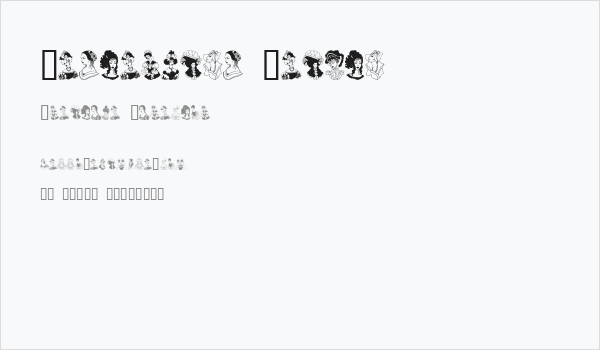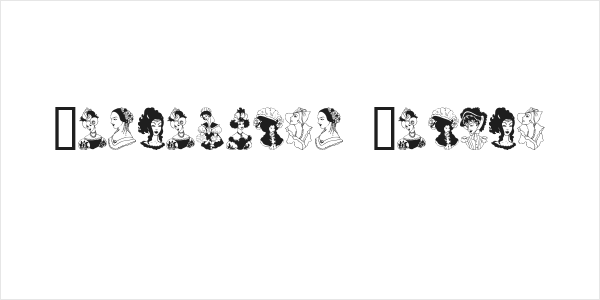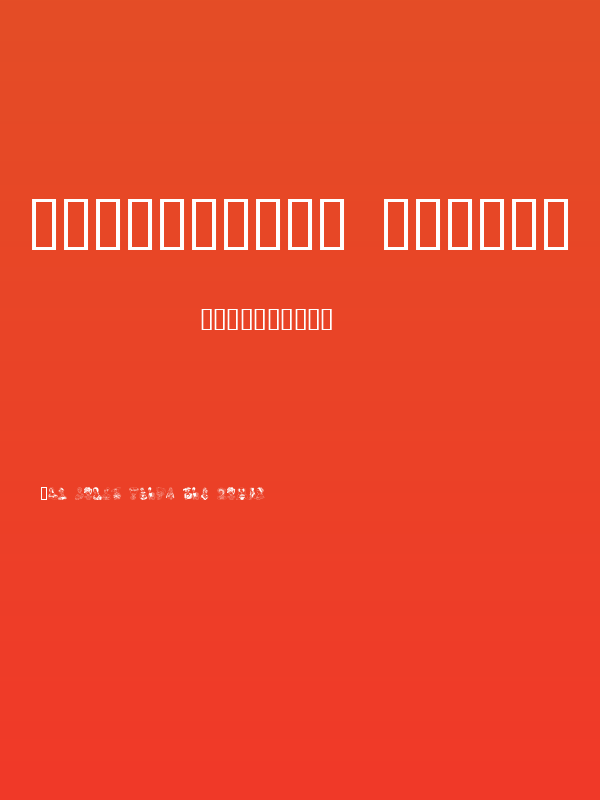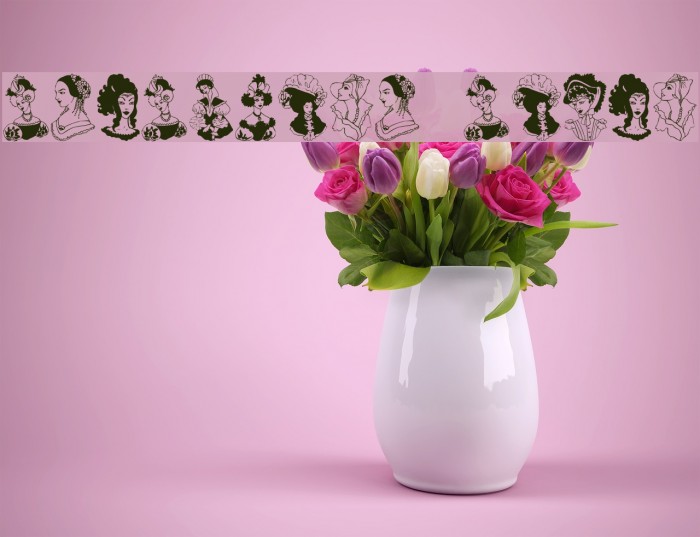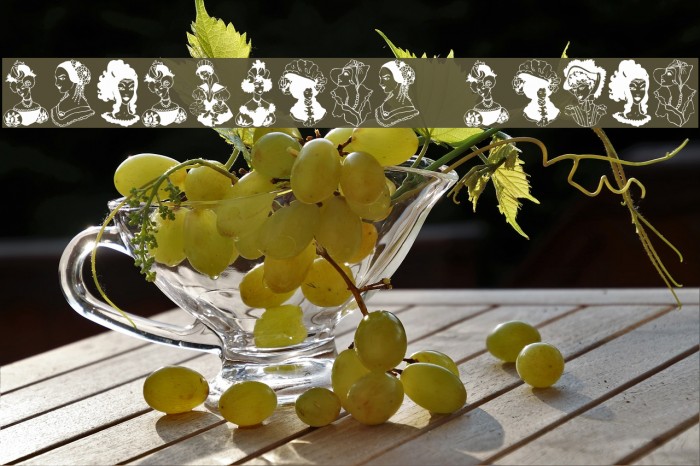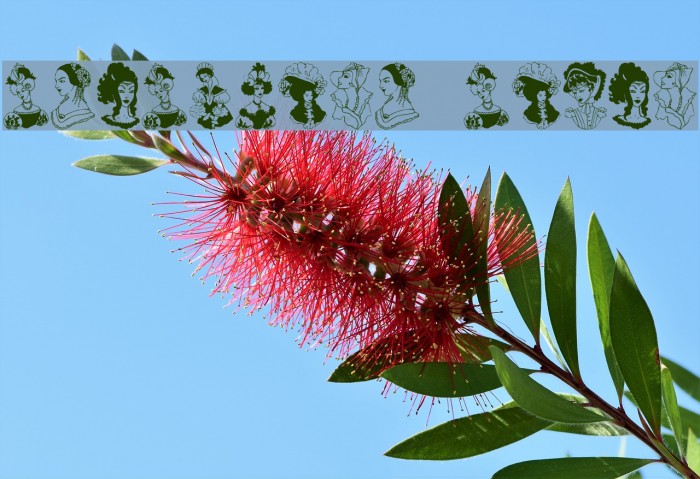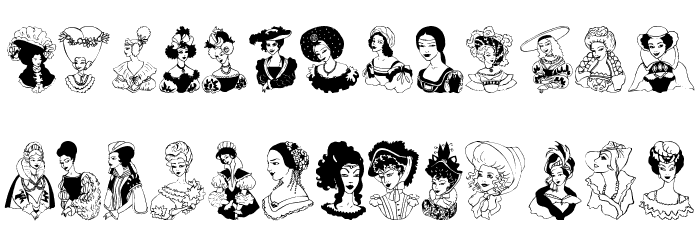
Yesterdays Beauty Font
Yesterdays Beauty Description
A decorative dingbat font featuring detailed black-and-white illustrations of women in historical and vintage attire, showcasing various hairstyles, hats, and fashion from different eras.
| Overall Style | Vintage, Decorative |
| Use Case | Decorative elements, Themed graphics, Scrapbooking |
| Proposed Projects | Invitations, vintage-themed posters, scrapbooking, decorative borders, historical presentations, and event branding. |